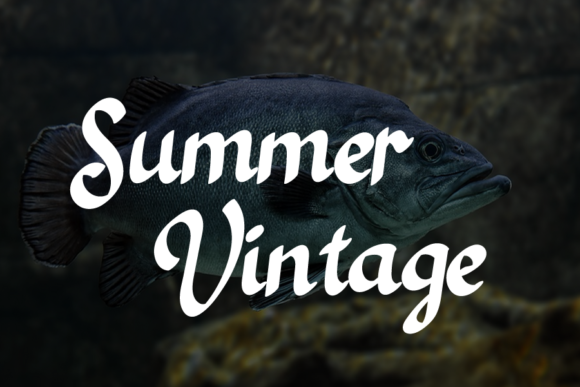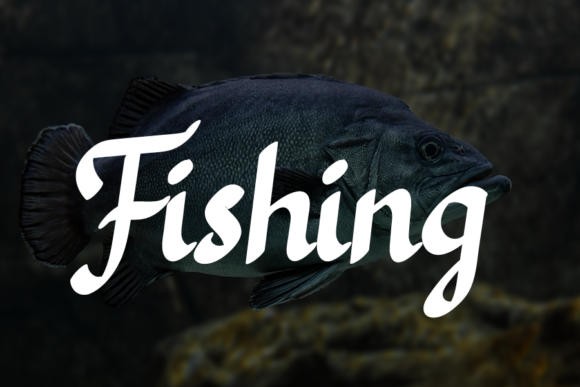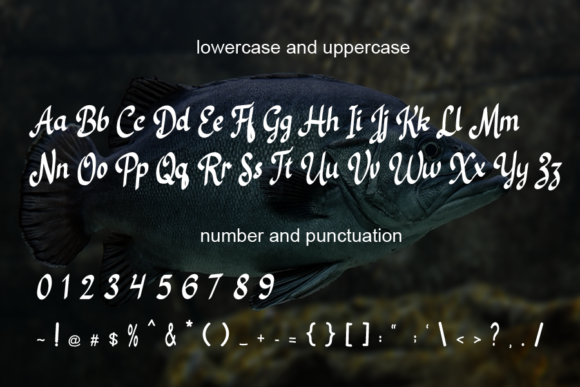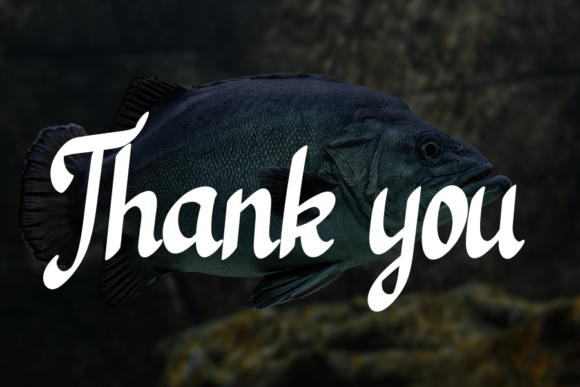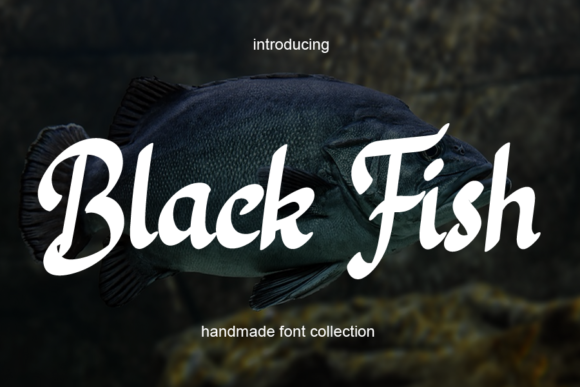
Discover the Charm of Black Fish Font: Elevate Your Designs with its Playful Romanticism
Are you tired of using the same old fonts in your designs? Look no further! Black Fish Font is a beautiful script font that can add a touch of elegance and playfulness to your creations. With its romantic charm and versatility, this font is perfect for designers and crafters looking to take their designs to the next level.
What is Black Fish Font?
Black Fish Font is a stunning script font that features beautiful, flowing letters with a touch of whimsy. Its unique design makes it perfect for a variety of projects, from wedding invitations and branding materials to social media graphics and digital art. Whether you’re looking to add a personal touch to your designs or create a bold statement, Black Fish Font is an excellent choice.
Key Features of Black Fish Font
• Playful and Romantic: Black Fish Font has a playful, romantic charm that makes it perfect for designs that require a touch of elegance and sophistication.
• Versatile: This font is highly versatile and can be used for a wide range of projects, from digital art to print materials.
• Easily Readable: Despite its script design, Black Fish Font is easily readable, making it perfect for body text and headlines.
• High-Quality: This font is designed with high-quality craftsmanship, ensuring that it looks great in any design.
Why Choose Black Fish Font?
With so many fonts available, why choose Black Fish Font? Here are just a few reasons why designers and crafters love this beautiful script font:
• Adds a Personal Touch: Black Fish Font adds a personal touch to your designs, making them stand out from the crowd.
• Perfect for Branding: This font is perfect for branding materials, such as logos, business cards, and letterheads.
• Great for Digital Art: Black Fish Font is a great choice for digital art, including social media graphics, blog posts, and digital illustrations.
How to Use Black Fish Font in Your Designs
Using Black Fish Font in your designs is easy! Here are a few tips to get you started:
• Pair it with Other Fonts: Pair Black Fish Font with other fonts to create a unique and interesting design.
• Use it for Headlines: Use Black Fish Font for headlines and titles to add a touch of elegance and sophistication.
• Add it to Your Branding: Add Black Fish Font to your branding materials, such as logos and business cards, to create a consistent look.
• Experiment with Colors: Experiment with different colors and textures to add depth and interest to your designs.
Font Name Black Fish Font
Black Fish Font is a beautiful script font that can add a touch of elegance and playfulness to your designs. With its romantic charm and versatility, this font is perfect for designers and crafters looking to take their designs to the next level. Whether you’re looking to add a personal touch to your designs or create a bold statement, Black Fish Font is an excellent choice. So why not give it a try and see how it can elevate your designs?
Get inspired by the playful romantic charm of Black Fish Font and add this lovely choice to your creations today!